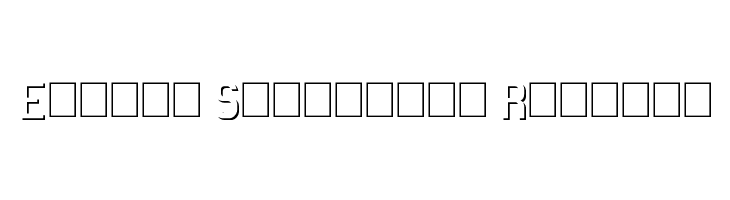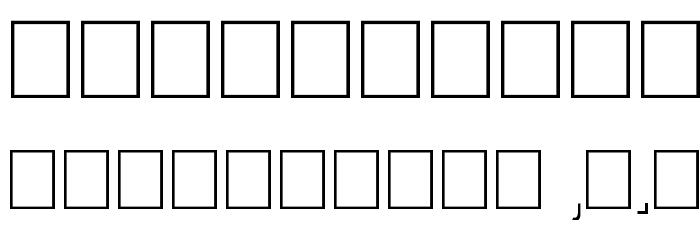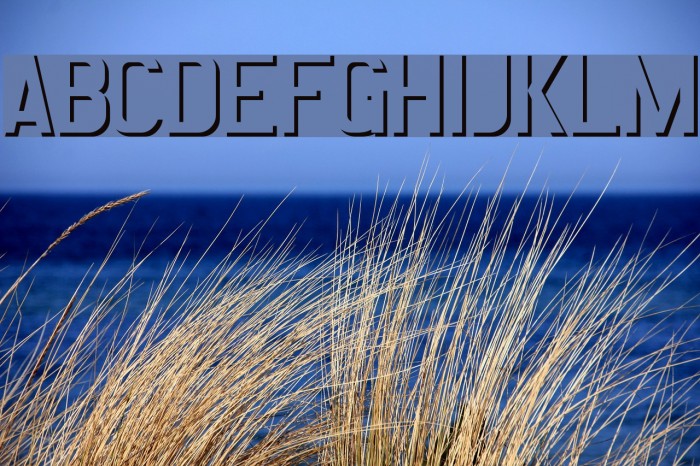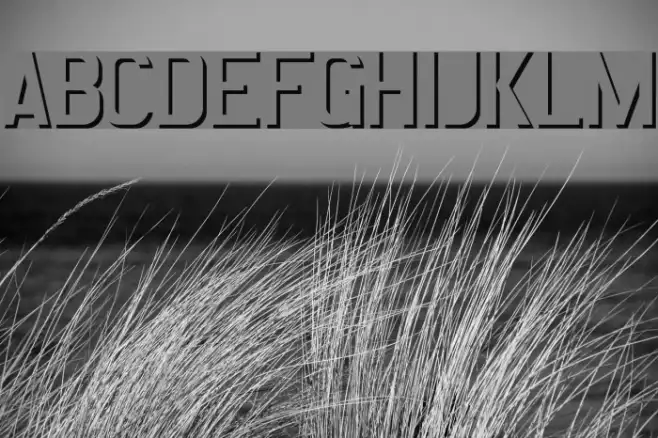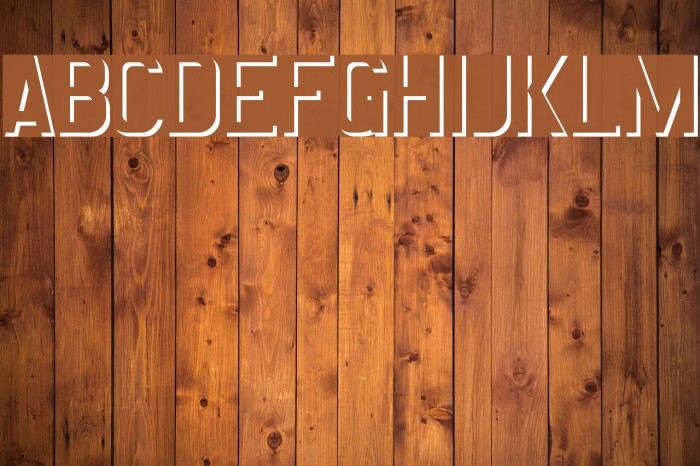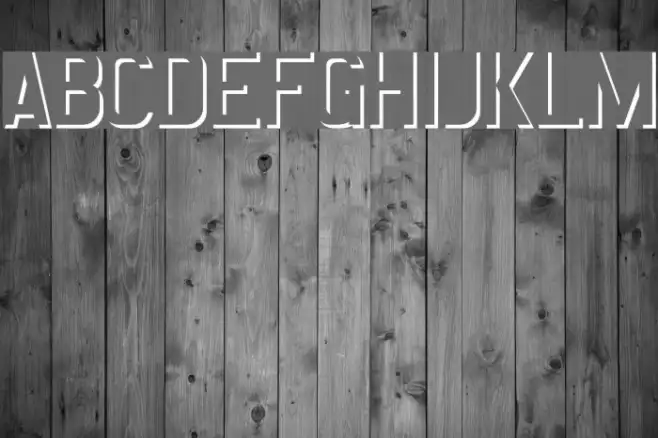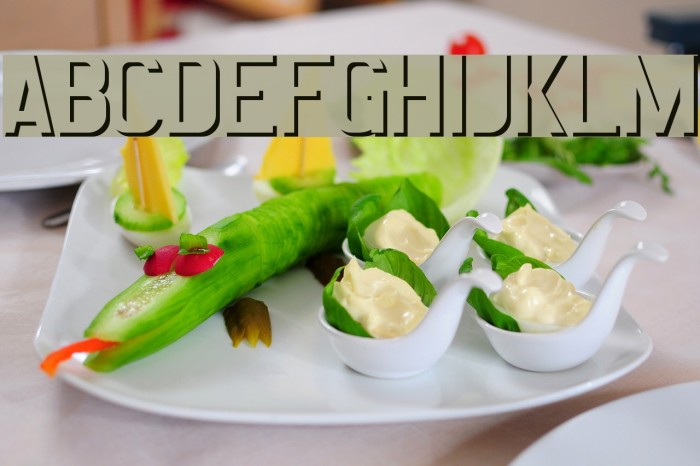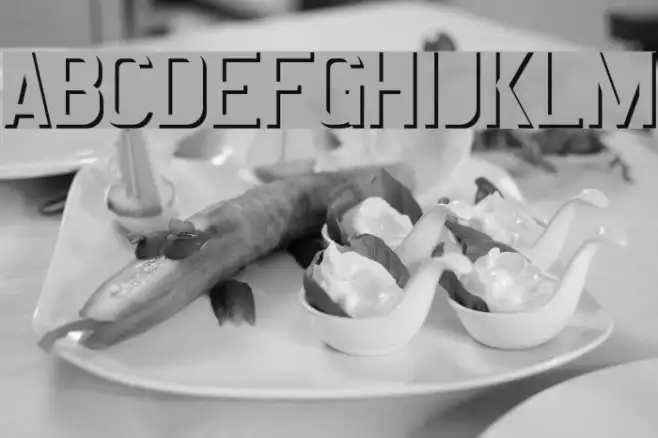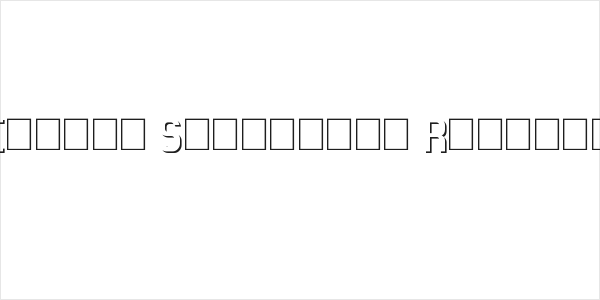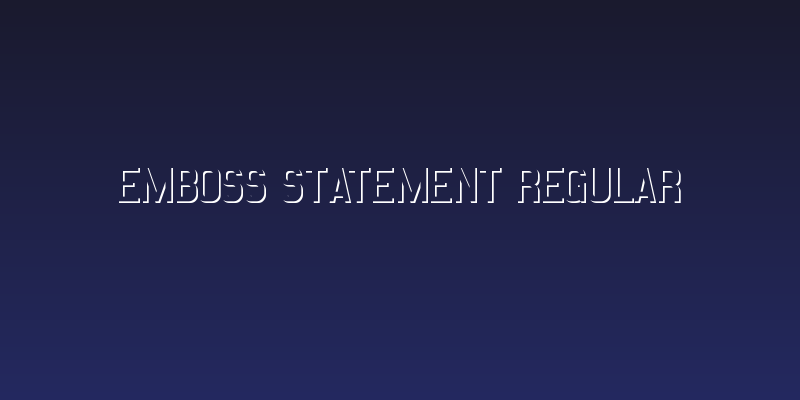
Emboss Statement Regular Font
Emboss Statement Regular Description
This font features a bold, geometric design with a distinct three-dimensional effect, giving the impression of letters being embossed onto the surface. The uppercase letters are sharply defined with clean, straight lines and angular corners, creating a modern and impactful appearance. The absence of lowercase letters and numbers suggests a focus on strong, statement-making text. The font's unique style is well-suited for creating eye-catching headlines and titles, where a sense of depth and dimension is desired. Its structured form and high contrast between the strokes and the background make it ideal for projects that require a bold and assertive visual presence.
| Proposed Projects | Ideal for branding, posters, signage, and any design requiring a strong visual impact. |